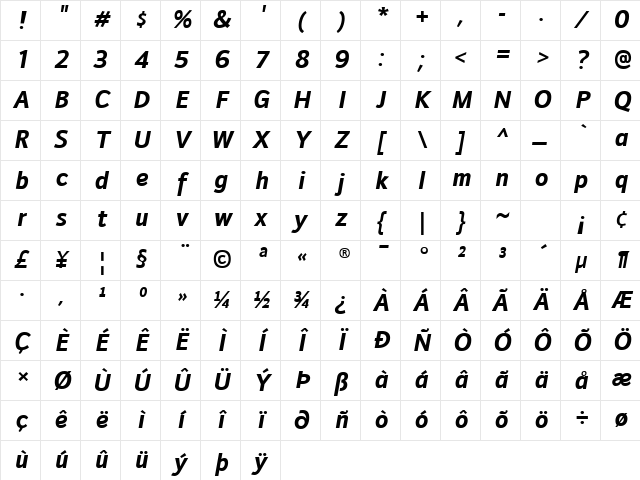
Doradani Bold Italic
Doradani Family
Complete Doradani Bold Italic glyph index. Displaying only characters natively supported by Doradani Bold Italic font.
Design Context for Doradani
Doradani is a composed and adaptable typeface that performs quietly and consistently across a wide range of design contexts. The slanted form adds forward momentum and visual energy. Its bold stroke weight gives it real presence on the page.